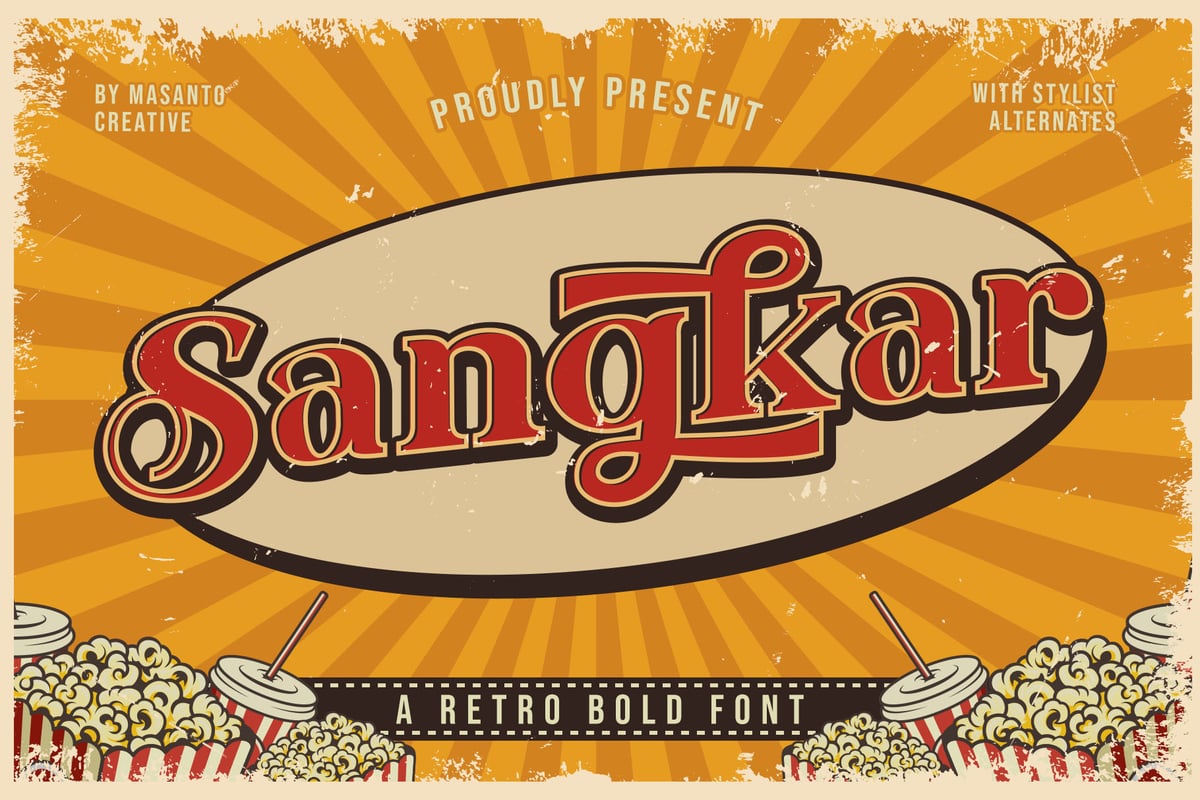
Sangkar – Retro Bold Display Typeface
Bold, nostalgic, and impossible to ignore — Sangkar is the retro display typeface built for standout creative work.
Sangkar is a retro bold display font featuring thick strokes, playful curves, and vintage-inspired letterforms that command attention. Its strong character and nostalgic energy make it a natural fit for posters, headlines, signage, logos, product packaging, and branding projects that need a bold, dynamic typographic presence.
With a rich set of stylistic alternates and ligatures, Sangkar gives you the flexibility to customize your layouts and create compositions with genuine vintage character. The font supports uppercase and lowercase characters, numerals, punctuation, and multilingual text.
- Ligatures and stylistic alternates